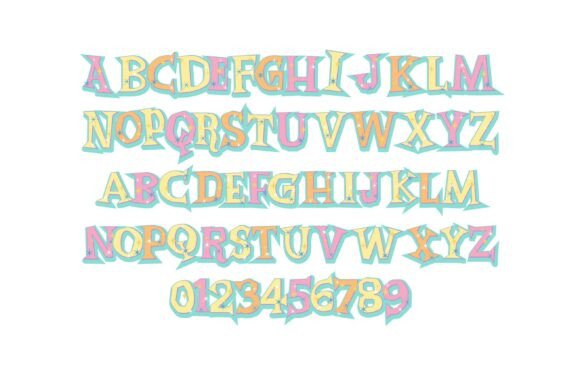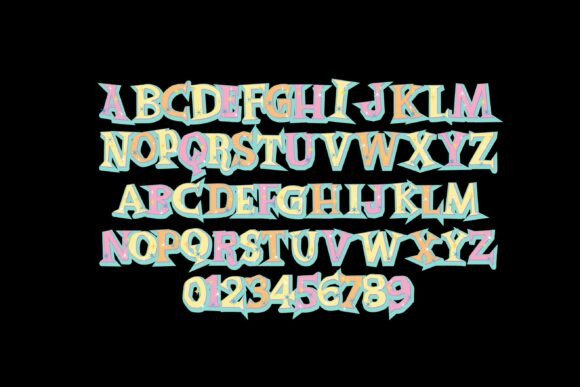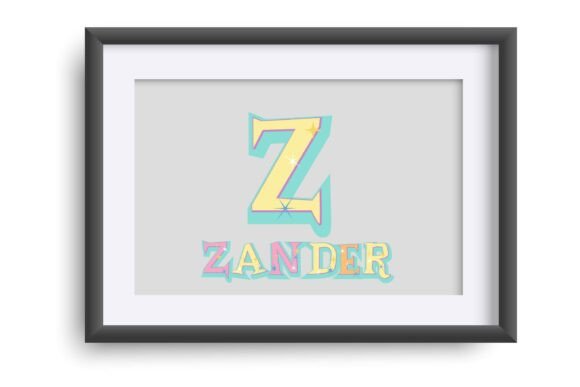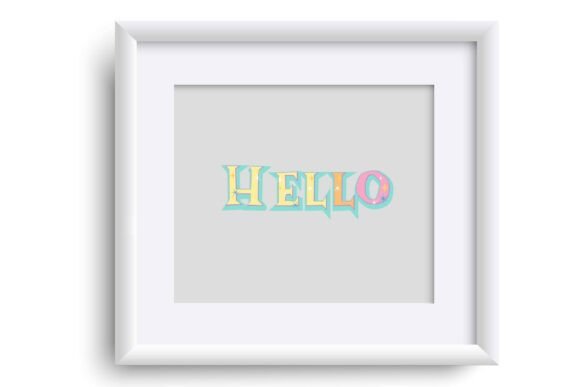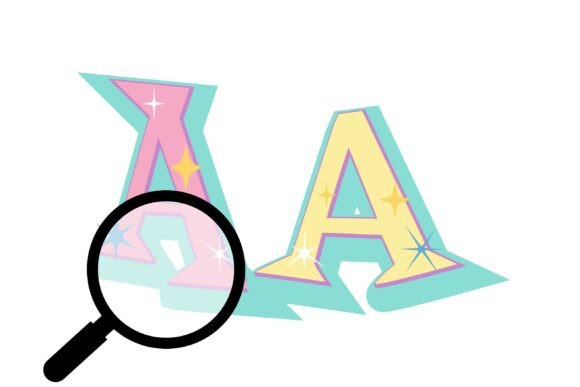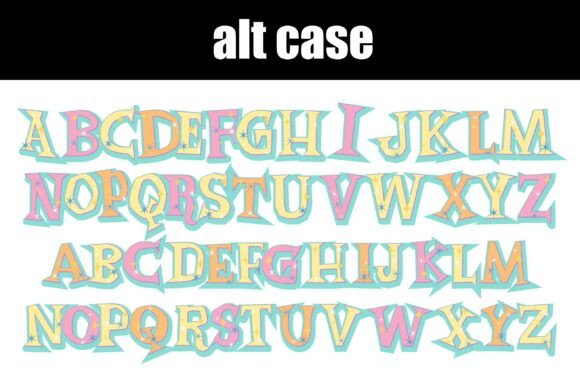
Introduction to Pastel Game Font
Do you remember the rush of excitement as you conquered your first virtual quest or triumphed over an epic boss battle in your favorite retro fantasy game? For many of us, those moments sparked a lifelong passion for gaming and creative expression. But what if you could recapture that magic in your own design projects? Enter Pastel Game Font, a high-energy full-color SVG font that distills the essence of classic retro gaming into a stunning visual identity.
As a designer, you’re always on the lookout for high-quality design resources that can elevate your creative projects. That’s where Pastel Game Font comes in – a free download that’s perfect for virtual streamer overlays, cozy gaming UI designs, and more. With its soft sherbet-pastel gradient fill and embedded sparkles, this font is sure to add a touch of nostalgic charm to your designs, while its transparent background and sharp, wide-serif letterforms make it a versatile choice for any project.
Key Features of Pastel Game Font
- High-quality design: The Pastel Game Font is a unique and visually appealing font, perfect for creative projects that require a touch of whimsy and charm.
- Transparent background: The font’s transparent background allows for easy layering and manipulation, making it ideal for use in digital art and graphic design.
- Pixel-perfect resolution: The font is designed at a resolution of 72 dpi, making it perfect for use in digital art, graphic design, and video game development.
- Unique characteristics: The Pastel Game Font features a distinctive, hand-drawn style with subtle texture and imperfections, giving it a charming, human touch.
- Design resource: This font is an excellent resource for designers, artists, and developers working on creative projects, including video games, animations, and interactive experiences.
Honest Review: Pastel Game Font
I recently stumbled upon the Pastel Game Font and I must say, it’s a delightful addition to any creative project. The font is designed specifically for game development, but its unique aesthetic makes it perfect for various design applications.
One of the standout features of the Pastel Game Font is its high quality and versatility. The font is available for free download, which is a huge plus for designers on a budget. The transparent background also makes it easy to use in various design contexts.
- ✨ Transparent background for easy use in various design contexts
- ✨ Versatile font that’s great for game development and beyond
However, there are some limitations to consider: ⚠️ The font may not be suitable for formal or professional projects, as its playful aesthetic may not be taken seriously. Additionally, the font’s design may not be as customizable as some designers would like.
Overall, I’m impressed with the Pastel Game Font and think it’s a great addition to any designer’s toolkit. Its unique design and high quality make it a valuable resource for creative projects. Just be aware of its limitations and use it accordingly.
Pastel Game Font
Designing with a Transparent Background
Tips for Getting the Most Out of the Pastel Game Font
To get the most out of the Pastel Game Font, use it in combination with high-quality graphics and a clear design concept. Experiment with different font sizes, colors, and styles to create a unique look. Additionally, use the font in conjunction with other design resources, such as textures and patterns, to add depth and interest to your design.
The Pastel Game Font is commonly used in gaming, creative projects, and design resources. It’s perfect for designing graphics, logos, and other visual elements that require a soft, pastel look. Some common use cases include: